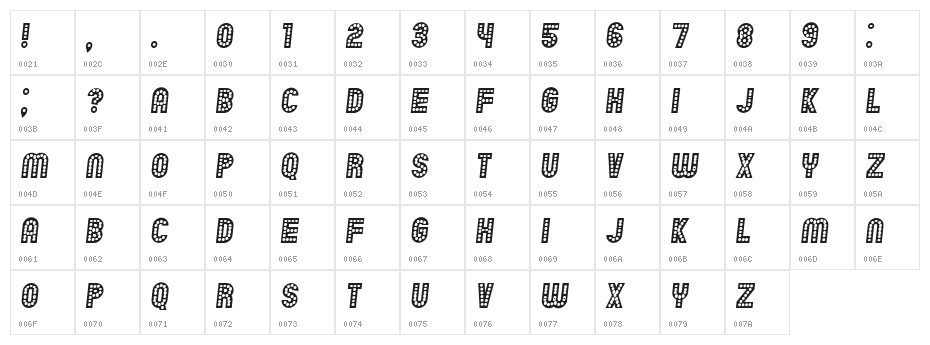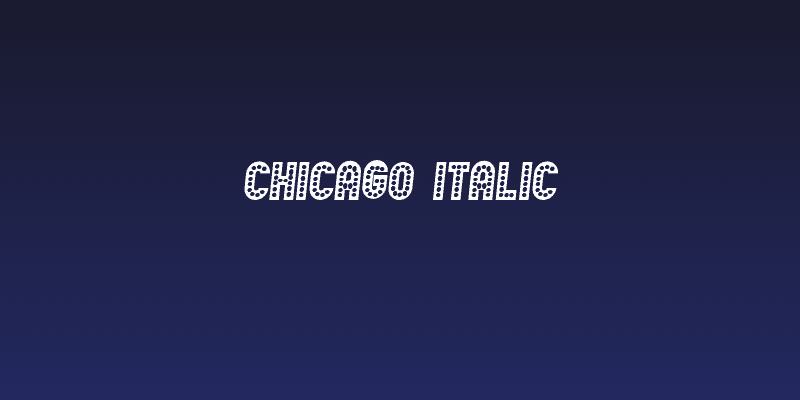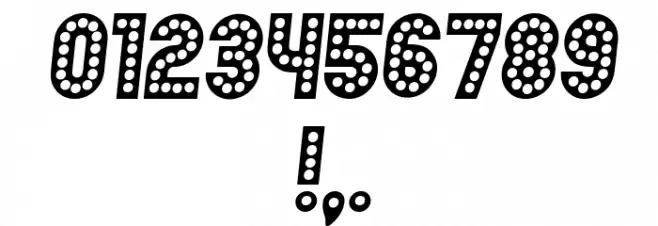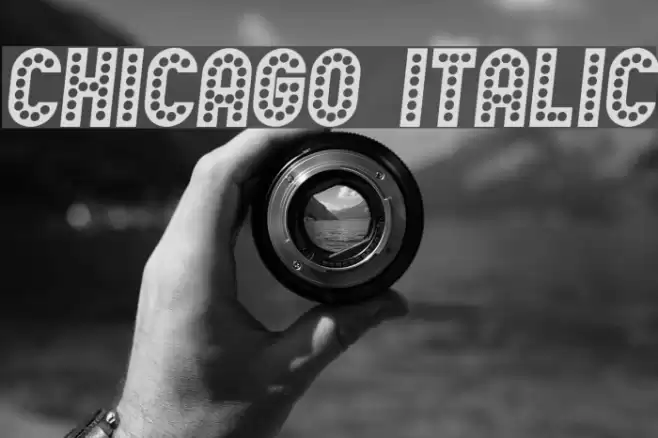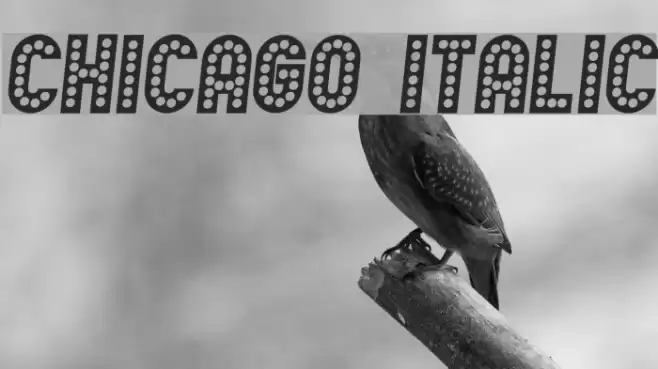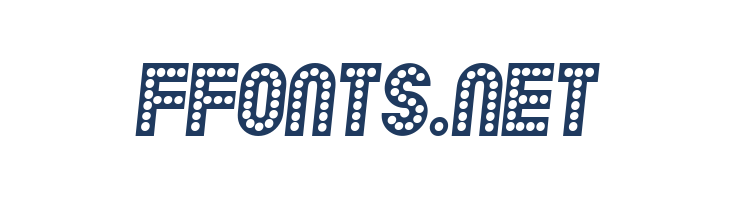
Chicago Italic Font
This font features a bold, decorative style with a unique dotted pattern filling each character. The letters are uppercase and lowercase, with numbers and special characters included. The design is reminiscent of marquee lights, giving it a theatrical and eye-catching appearance. The strokes are thick and consistent, with a medium contrast between the filled and unfilled spaces. The overall look is playful and dynamic, suitable for creating a lively and engaging visual impact.